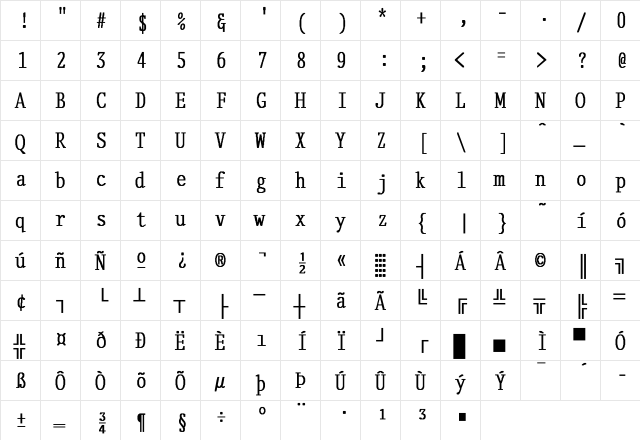
Delegate-Normal Cn Bold Bold
Design Context for Delegate-Normal Cn Bold Typeface
Delegate-Normal Cn Bold offers clean, dependable letterforms without strong stylistic allegiance, making it a practical choice for designers who need flexibility. The heavy weight commands attention and anchors typographic hierarchies.